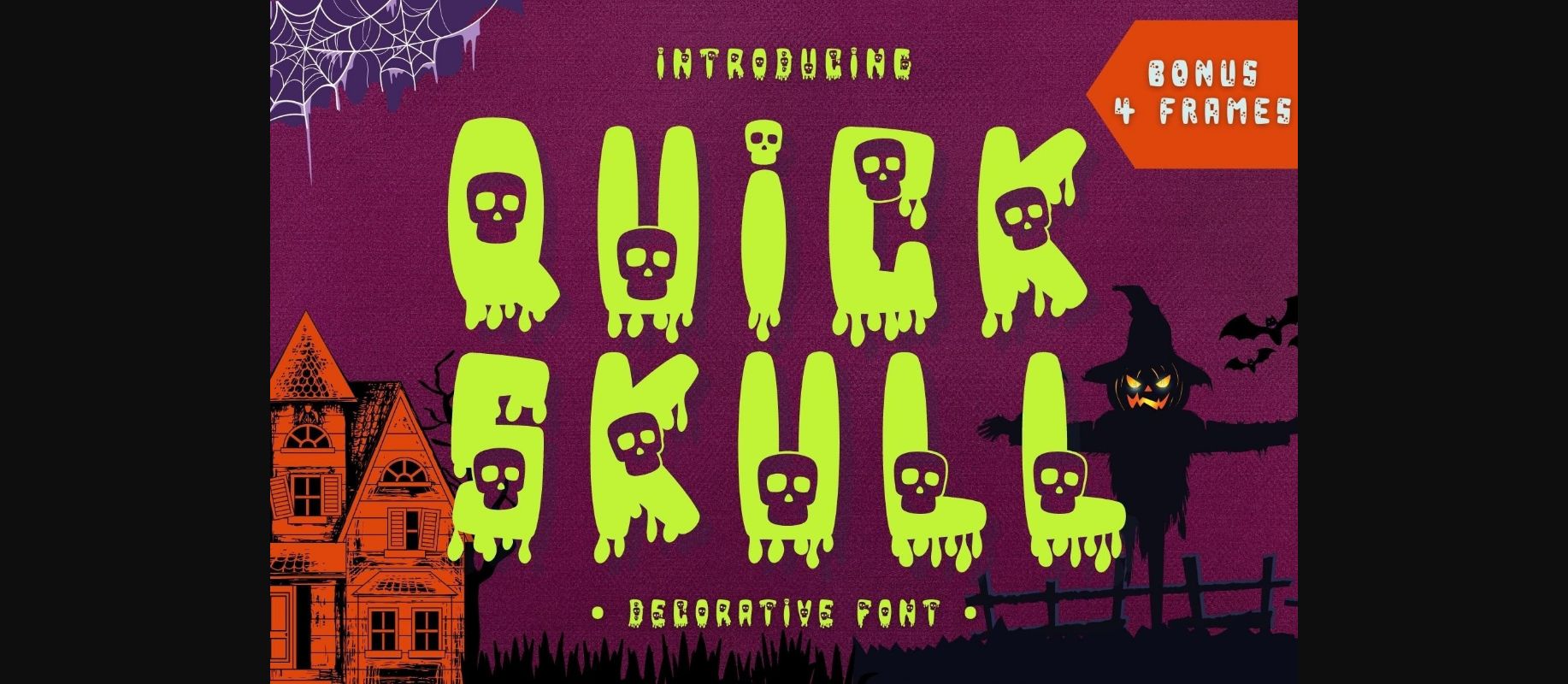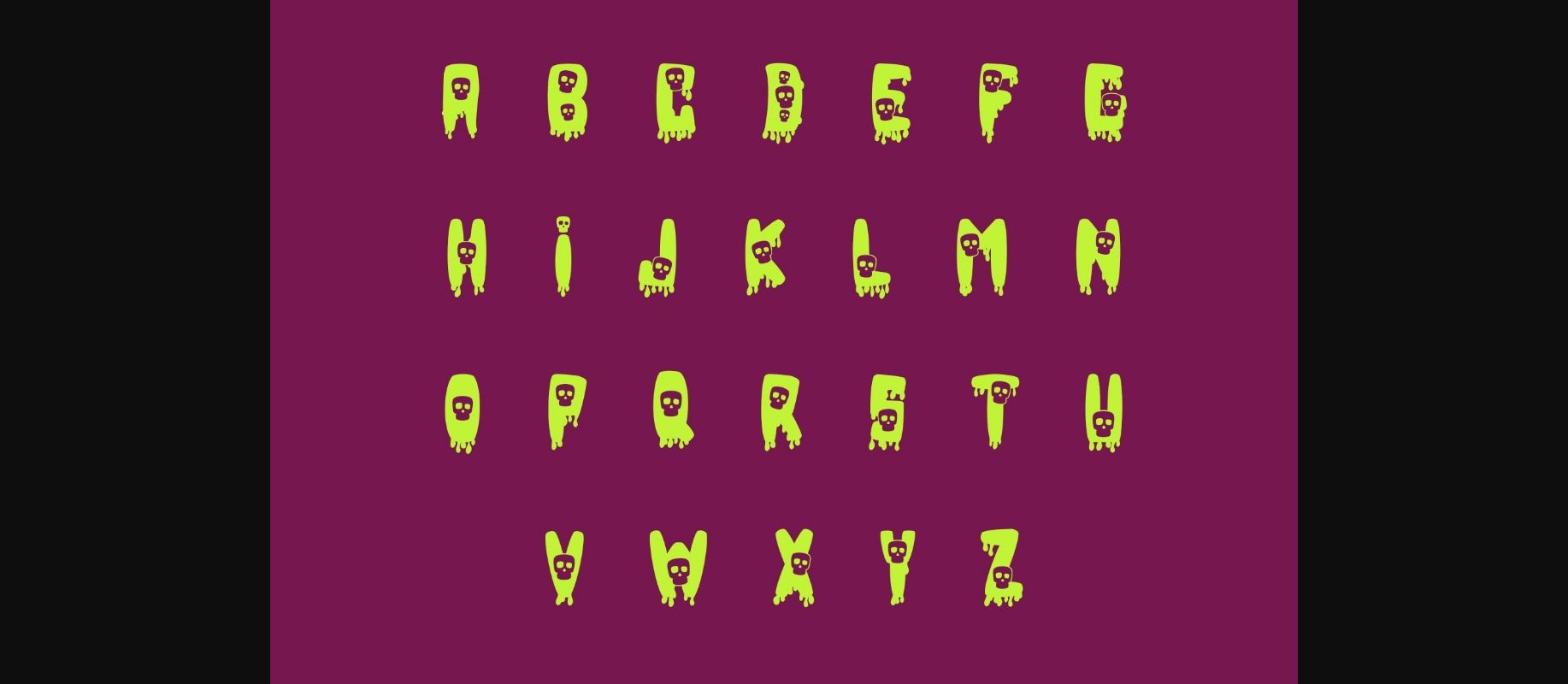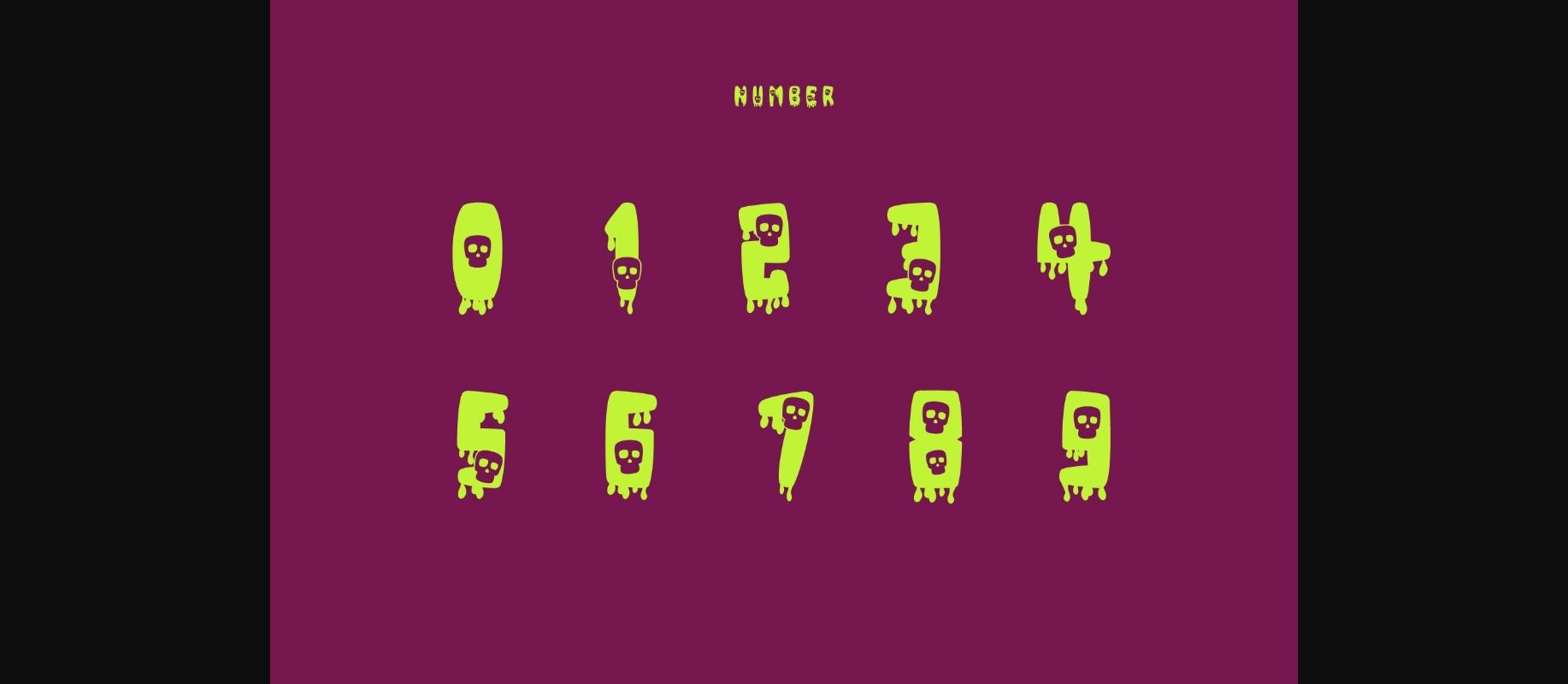
About Quick Skull Font
Quick Skull is a scary and fun decorative font. It embodies playfulness and authenticity and is the perfect choice for all your favorite Halloween projects, or even for blog posts, logos, branding, ads, invitations, greeting cards, planners, photo albums, decorations, and much more. Add it to any of your designs, and enjoy the results!